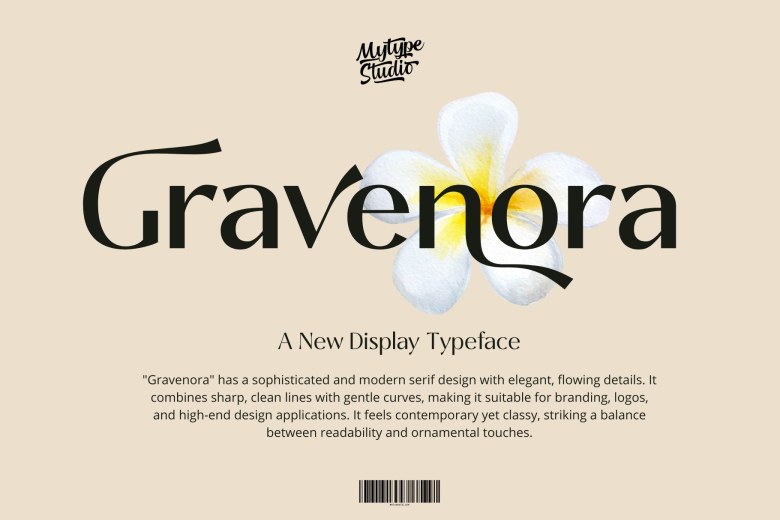
Gravenora Font
Discover a whole new kind of class with Gravenora, a pure and articulate sans serif font that combines tradition with modernism. Especially suitable for branding projects, logos, invitations, and any glossy magazine like design project, Gravenora gives that luxurious feel.
Gravenora Sans Serif Font